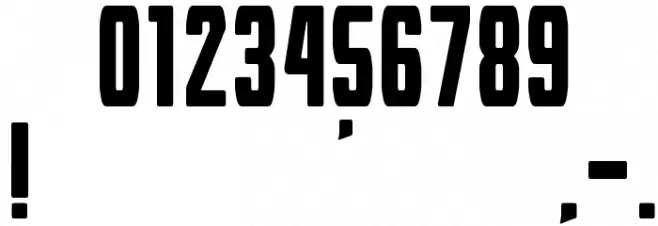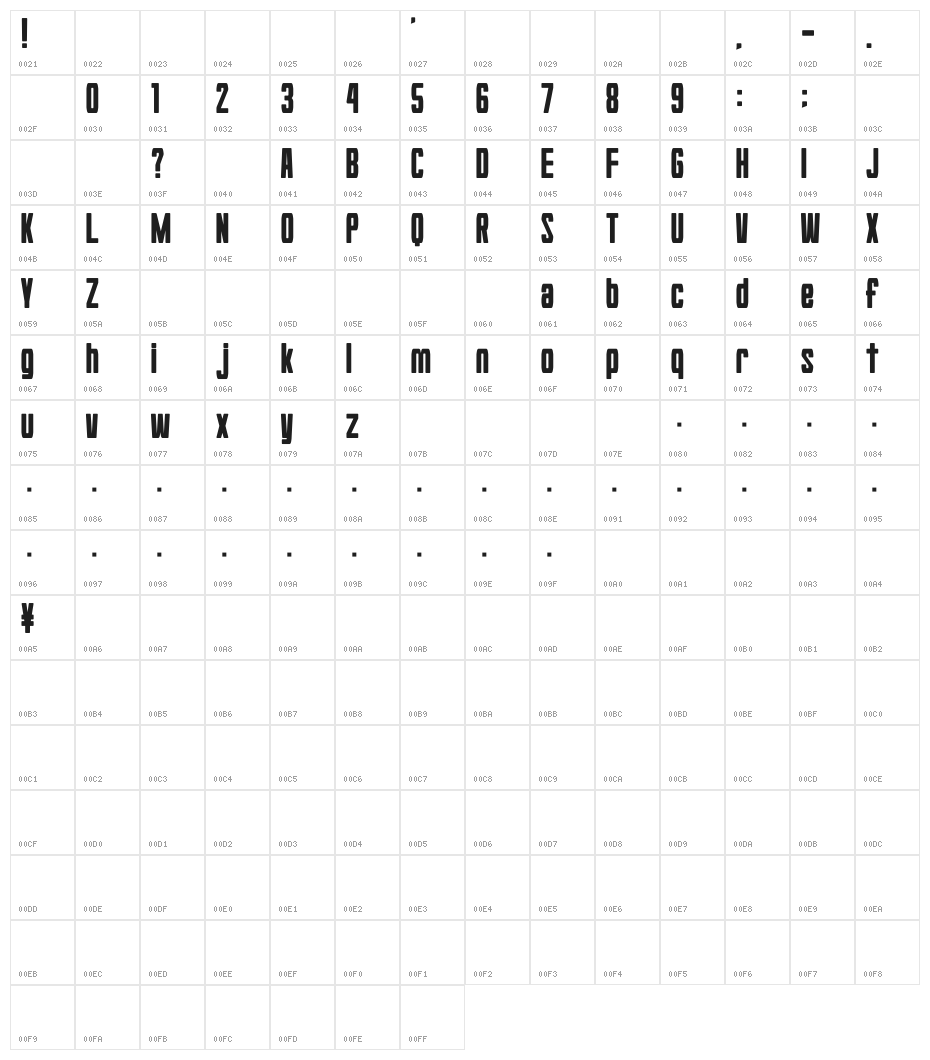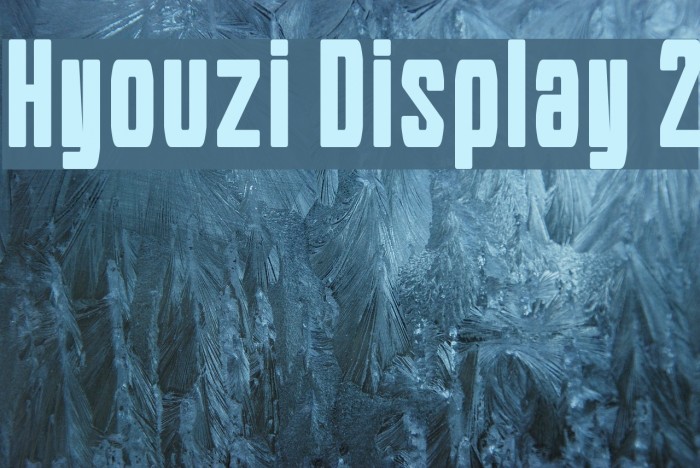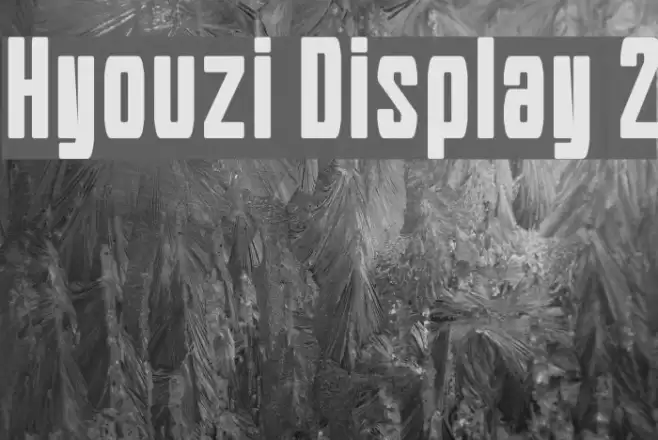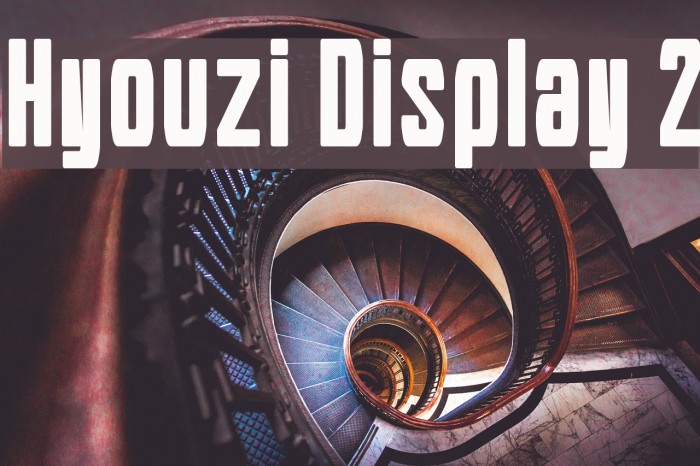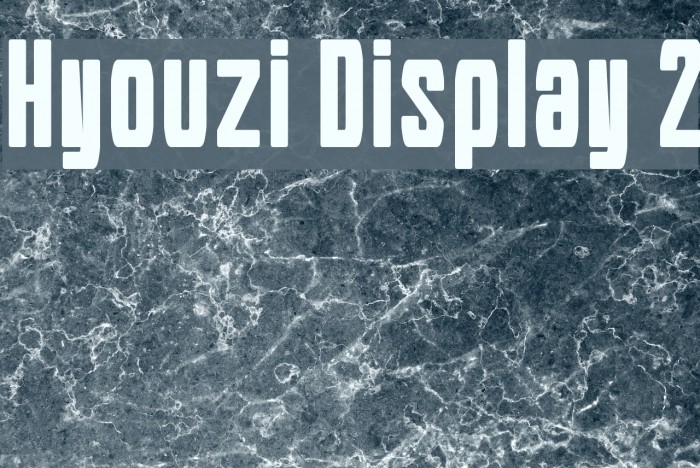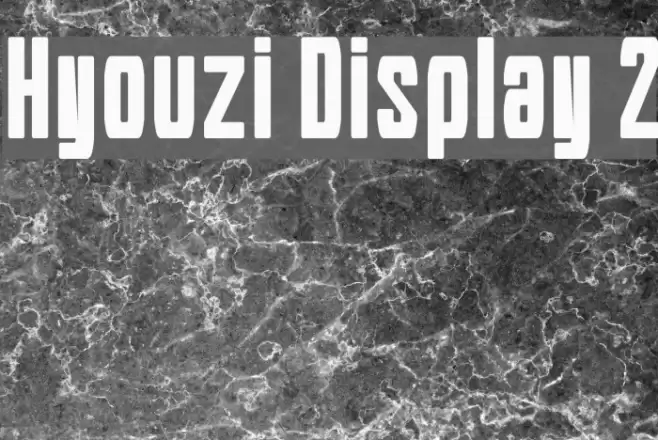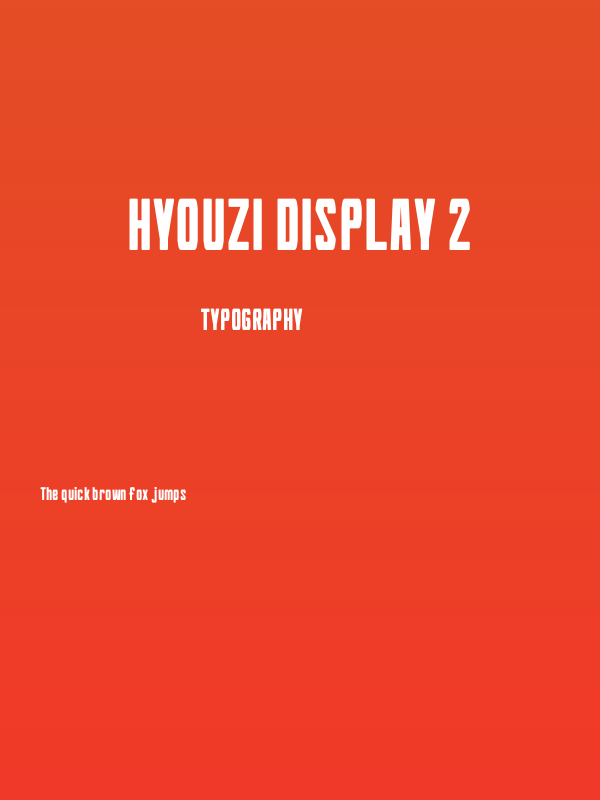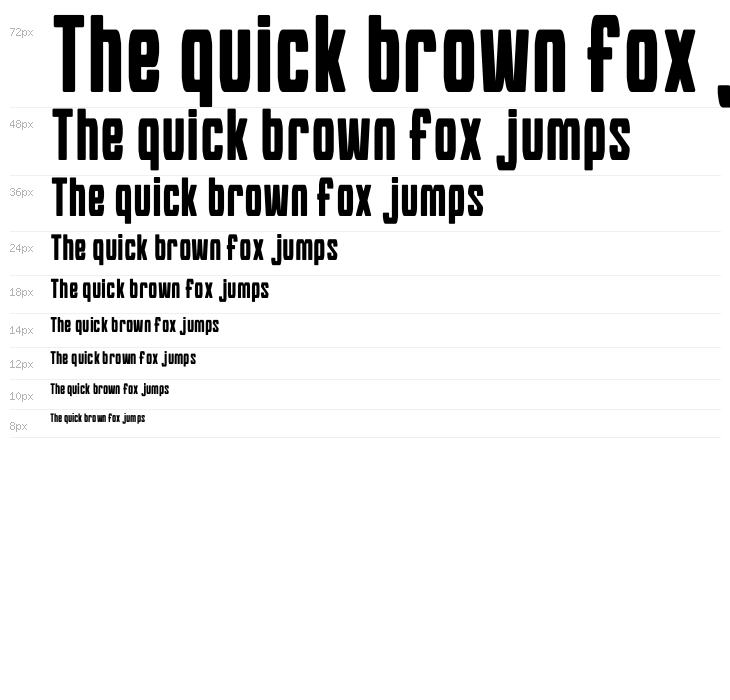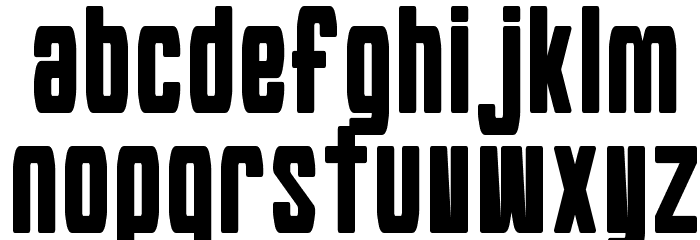
Hyouzi Display 2 Font
Hyouzi Display 2 Description
This font features a bold and impactful design with thick, uniform strokes that create a strong visual presence. The characters are tall and slightly condensed, giving them a modern and assertive appearance. The uppercase and lowercase letters maintain a consistent style, with sharp edges and a geometric structure. The numerals and special characters follow the same design principles, ensuring a cohesive look across all elements. This font is ideal for making a statement and capturing attention with its bold and confident style.
| Proposed Projects | Ideal for headlines, posters, branding, and any project requiring a strong visual impact. |